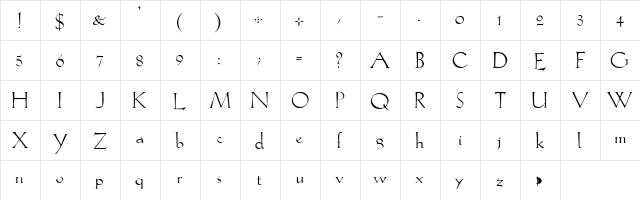
Lilith-Light Medium
Design Context for Lilith-Light Typeface
Lilith-Light is a composed and adaptable typeface that performs quietly and consistently across a wide range of design contexts. Its slender proportions lend an understated elegance to any composition.